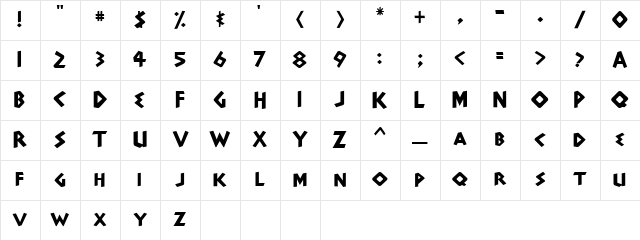
Adonais Regular
Design Context for Adonais
Adonais is a composed and adaptable typeface that performs quietly and consistently across a wide range of design contexts.